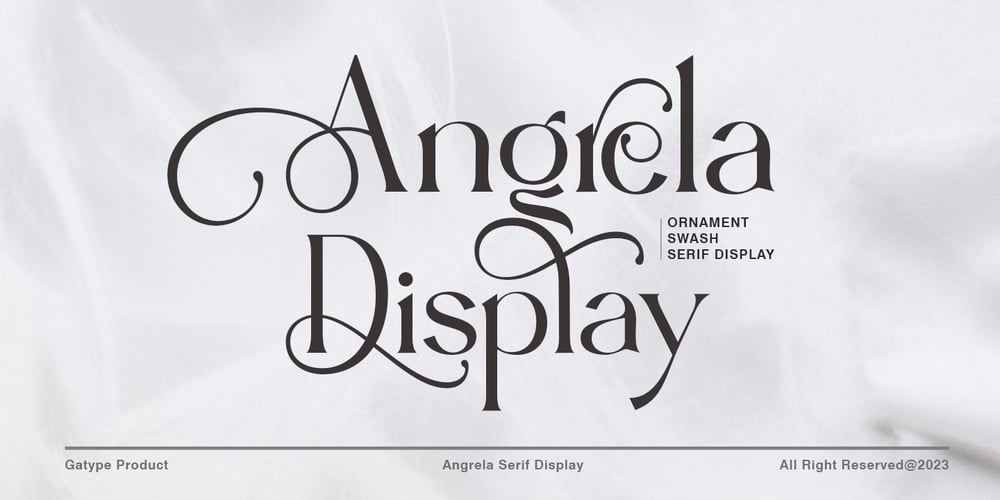
Angrela Display Font Family was designed by khaidir and published by Gatype. Angrela Display contains 1 styles and family package options. Angrela Display is an Ornament serif font with a charming, luxurious, elegant, modern, unique and classy appearance. Great for use for fancy themed projects, branding projects, Magazine, Social Media, Branding, Logos, website headers or simply as a stylish text overlay onto any background image. and Many more need a Luxury touch.Stylistic AlternativesSwashUppercase and LowercaseMultilingual CharacterNumberPunctuationIf there’s anything else you’re unsure about, feel free to message me ๐ There you go! Have fun using Angrela Display! Showing!!